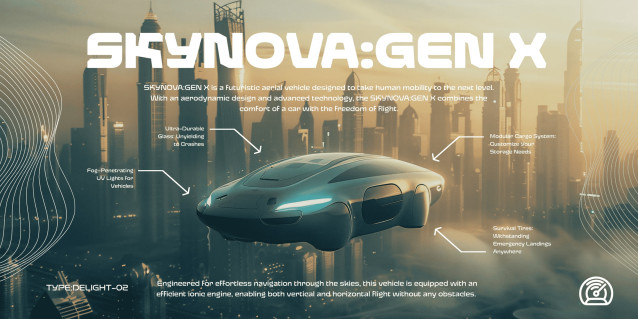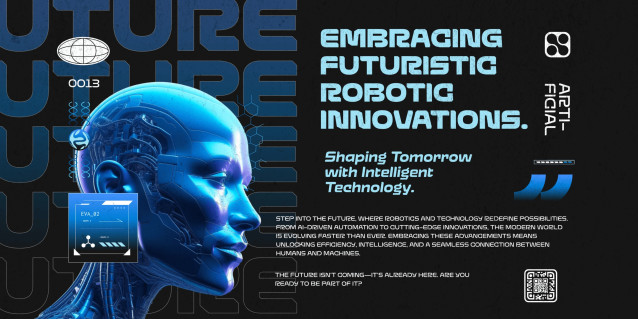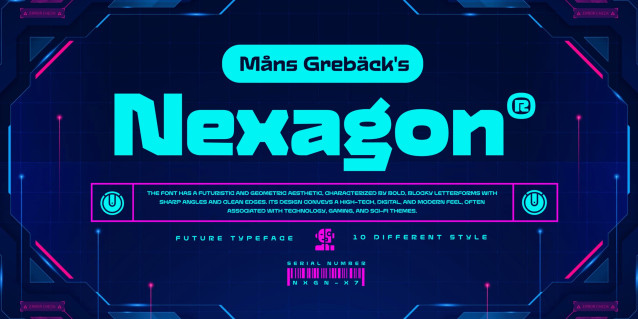
Nexagon Font Family
Nexagon Font Family is a geometric sans-serif typeface with rounded terminals, giving it a soft but techy appearence. Its distinct construction makes it legible while retaining a unique expression.
Use Nexagon for technology, sports, and gaming-related projects; great for logotypes and headlines, but also works wonders in running text.
The font is built with advanced OpenType functionality and guaranteed top-notch quality, containing stylistic and contextual alternates, ligatures and more automatic and manual features; all to give you full control and customizability.
It has extensive lingual support, covering all Latin-based languages, from North Europa to South Africa, from America to South-East Asia. It contains all characters and symbols you’ll ever need, including all punctuation and numbers.
Mans Greback is the designer behind Nexagon.